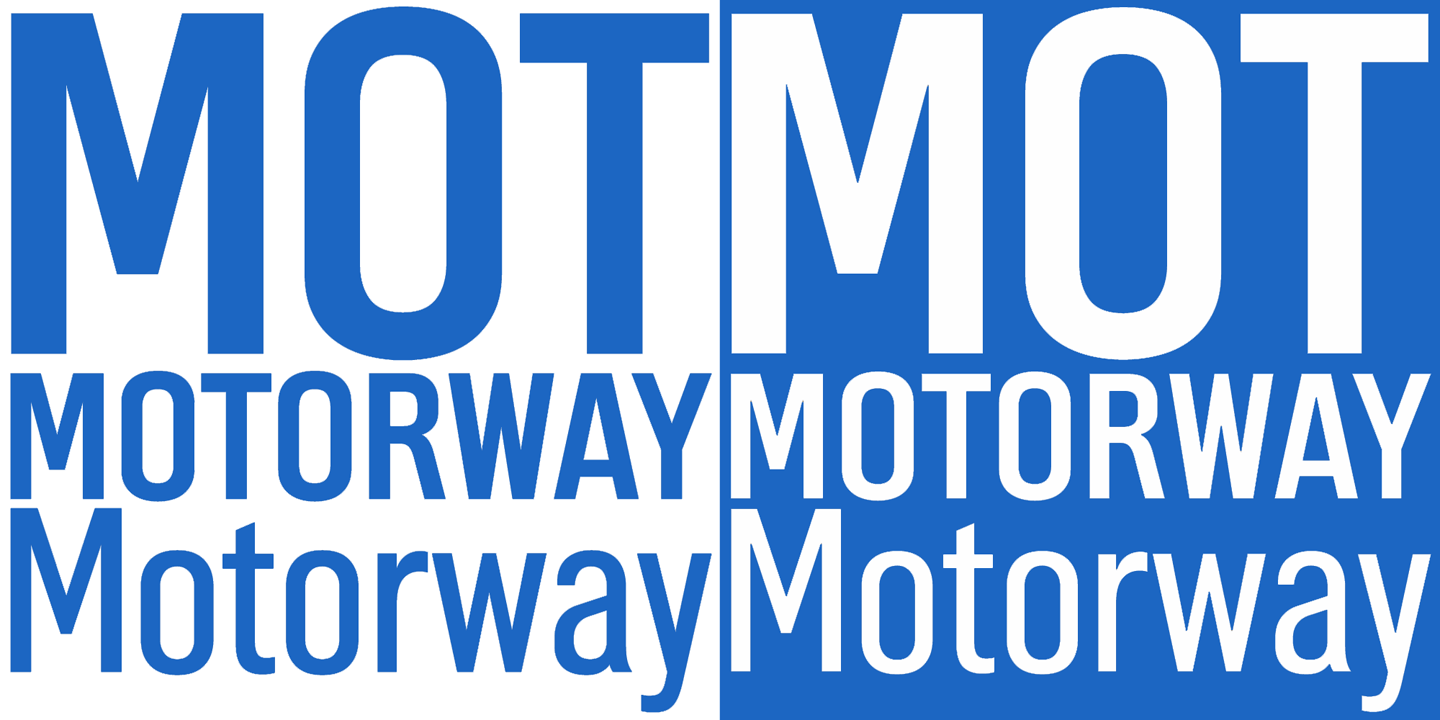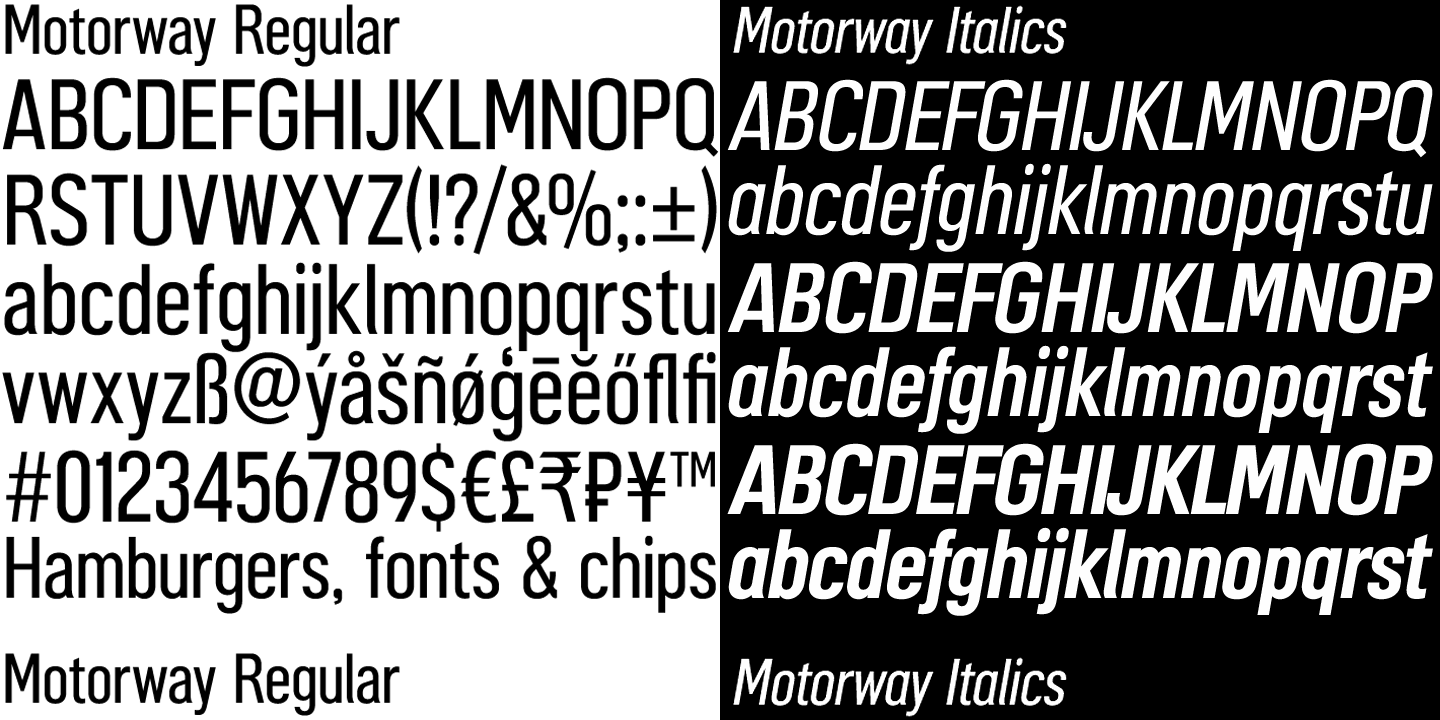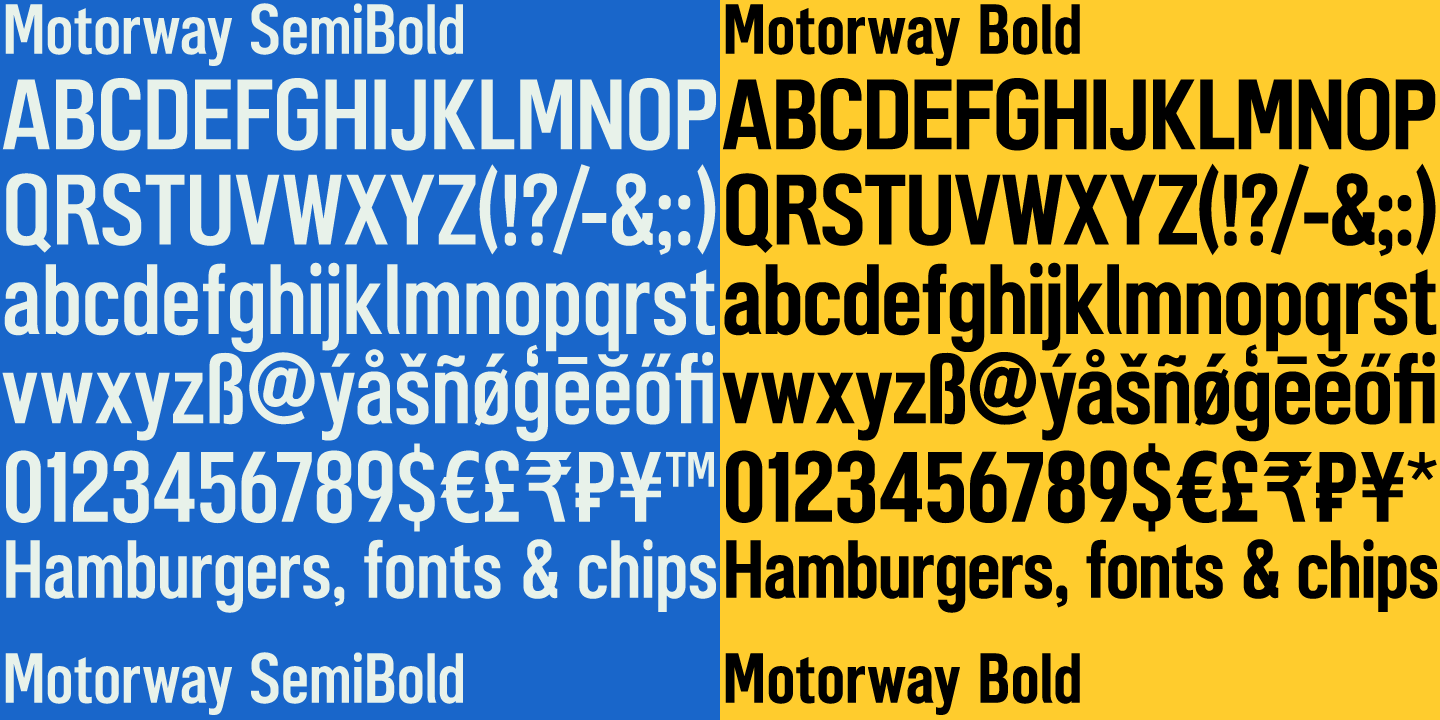
About Motorway
Motorway is the tall condensed lettering that displays route numbers on British motorway signs, often seen alongside the Transport typeface. When Jock Kinneir and Margaret Calvert created Motorway they only included the numbers 0 to 9, the capitals A,…